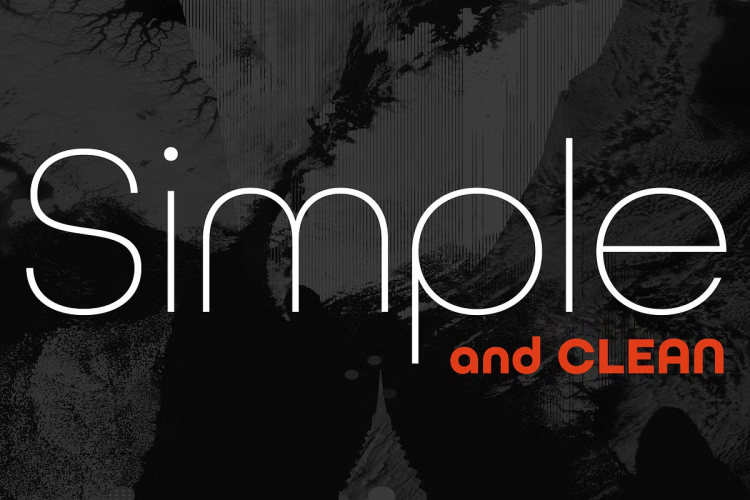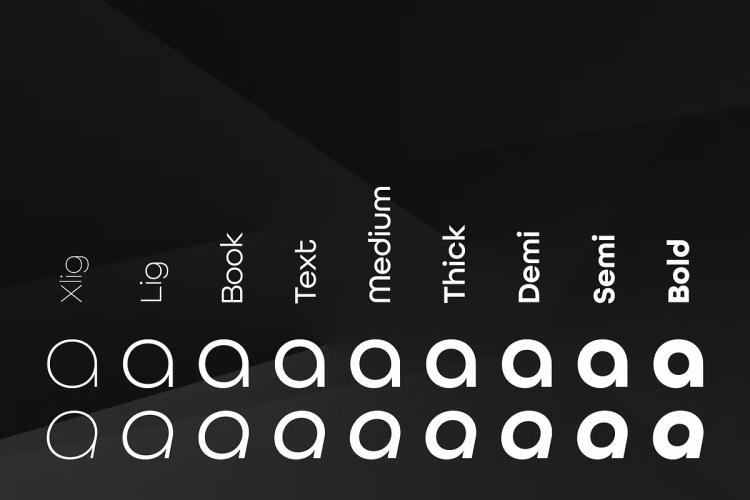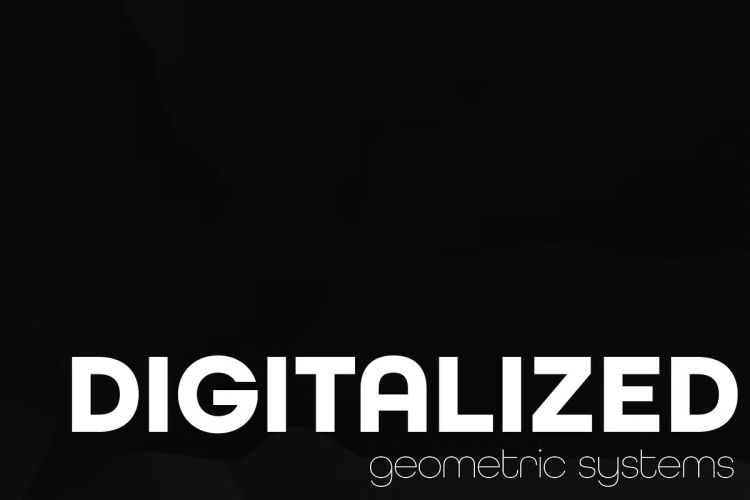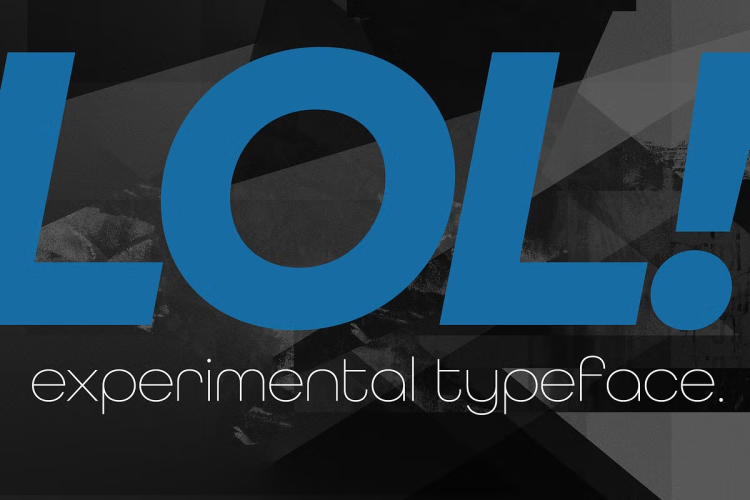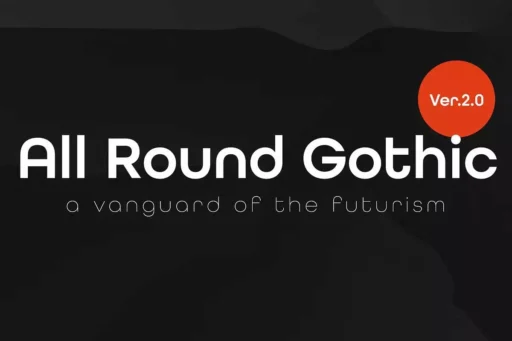
All Round Gothic Font
All Round Gothic font is a special font by Ryoichi Tsunekawa in 2012 as a sans serif font in the Gothic style similar to Avant Garde Gothic and Futura. This geometric sans serif typeface with tidy construction offers a playful and elegant ambience by having stemless and slightly uneven circles for the bowls.
Thus, Ryoichi Tsunekawa, a famous type designer and the founder of Dharma Type Foundry, created All Round Gothic. This font family combines the principles of the Bauhaus of the 1920s with today’s design concepts. Its simple, uncluttered, yet warm and welcoming lettering makes it suitable for use in text, displays, logos, posters, and even animations.
It comes in nine styles, each with an italic version, making it versatile for any project. If you want to find a new font that can be an excellent replacement for common sans serifs, look at All Round Gothic’s possibilities.
Where All Round Gothic Font works best
All Round Gothic Font stays legible at small sizes, which makes it a strong choice for navigation, buttons and dashboards in web design and app interfaces.
Clean sans serifs like All Round Gothic Font are the default language of SaaS, fintech and product branding.
What is All Round Gothic Font good for?